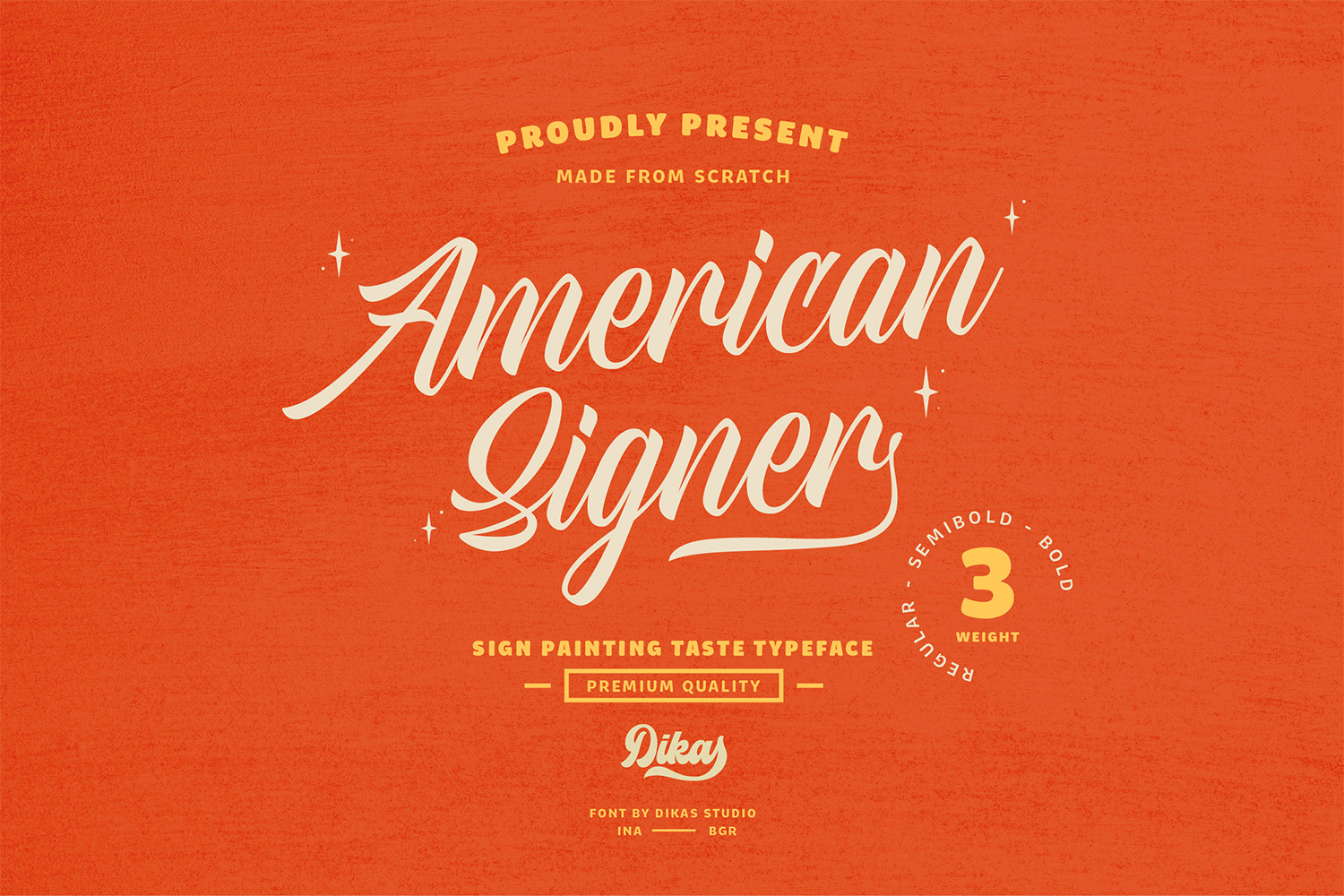
American Signer
Looking for a font that captures the essence of vintage sign painting from the 1980s? Look no further than American Signer, a unique script brush font inspired by traditional sign painting techniques. This comprehensive digitization process ensures that every stroke and flourish is meticulously recreated, giving you a truly authentic feel.
What sets American Signer apart is its extensive range of ligatures, alternate characters, and swashes, making it perfect for creating custom logos, badges, labels, packaging, certificates, and other vintage-inspired designs. Whether you're a designer looking to add some retro flair or an artist seeking to emulate the classic look of hand-painted signs, American Signer is the ideal choice.
With its textured, brush-stroke feel, this font is sure to evoke nostalgia for a bygone era while still providing all the versatility and functionality you need to bring your creative vision to life. So why settle for a generic script font when you can have a truly one-of-a-kind experience with American Signer?